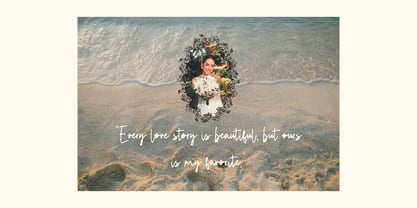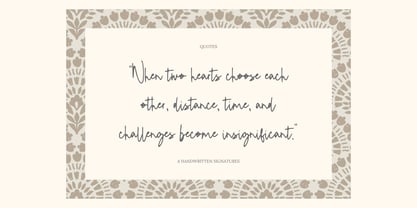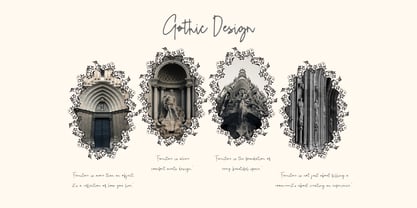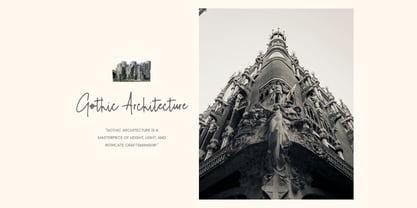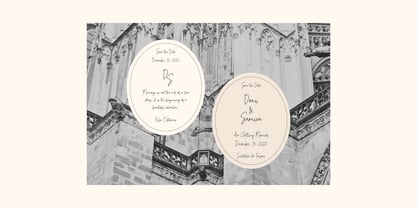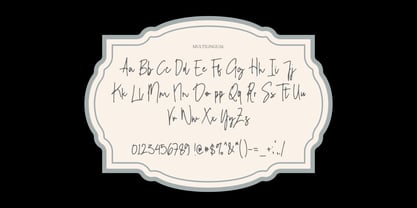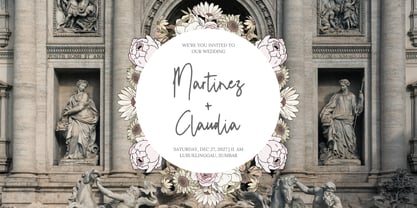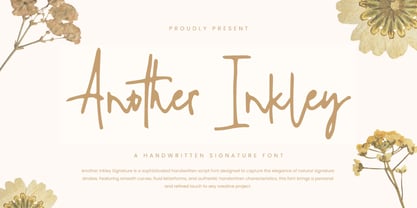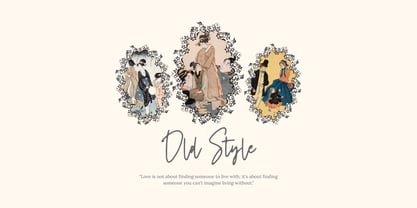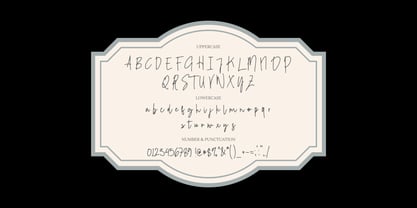
Another Inkley Signature
A família de fontes Another Inkley Signature foi desenhada por Dzulka Elfira e publicada pela Tebaltipis Studio. Another Inkley Signature contém 1 estilos. Saiba mais sobre esta família
A Handwritten Signature Font
Another Inkley is a handwritten signature font designed to bring an elegant, personal, and authentic touch to every design. With its smooth strokes, natural letter flow, and artistic details, this font lends a premium feel to a variety of creative projects.
Another Inkley Features :
Uppercase & Lowercase International Languange & Symbols Support Punctuation & Number PUA Unicode Range Standard Ligatures Discretionary Ligatures Stylistic Alternates Stylistic Set.
Designers: Dzulka Elfira